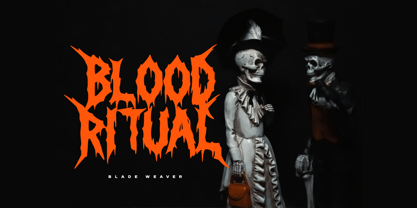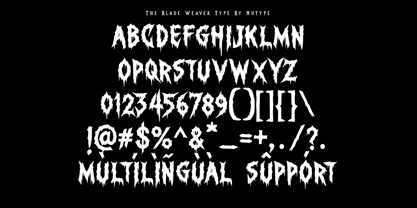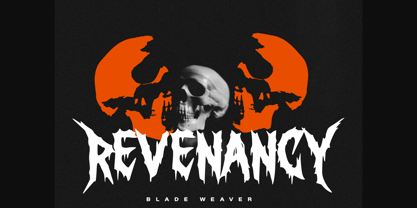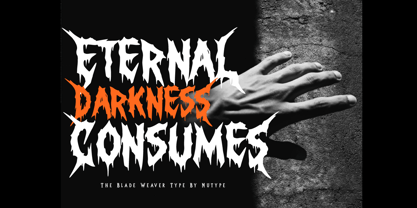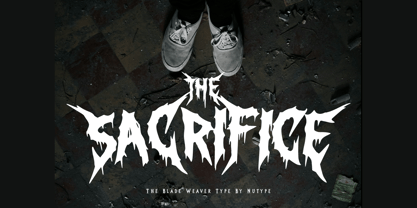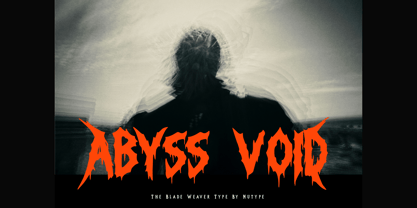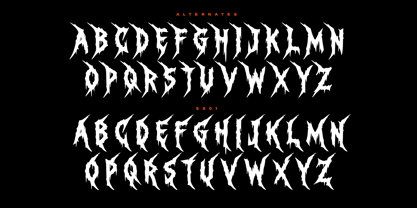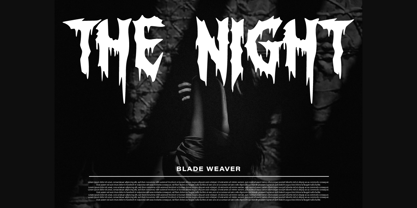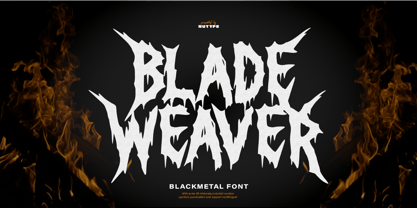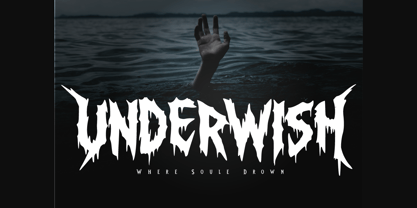
Blade Weaver
by ryan creative
The Blade Weaver Font Family was designed by ryan creative and published by ryan creative. Blade Weaver contains 1 styles.
Blade Weaver is a horror display typeface with sharp, distorted strokes, a dark fantasy, and an underground aesthetic. This font features over 40 alternates that will bring your designs to life, giving them a spooky, chaotic, and energetic look perfect for horror posters, movie titles, game logos, metal band artwork, Halloween designs, YouTube thumbnails, album covers, and branding projects requiring a strong sense of dread. FEATURES Full Uppercase & Lowercase Letter Set Numbers, Symbols & Punctuation 40+ Alterntes Multilingual Language Support Fully Compatible with Adobe, Corel, and Canva Perfect for Horror Posters, Logos, Games, Movies, and Branding Thank you for downloading Blade Weaver. This typeface is designed to give your projects a bold and eerie personality. We hope it becomes a valuable addition to your design toolkit and helps you create powerful and memorable visuals.